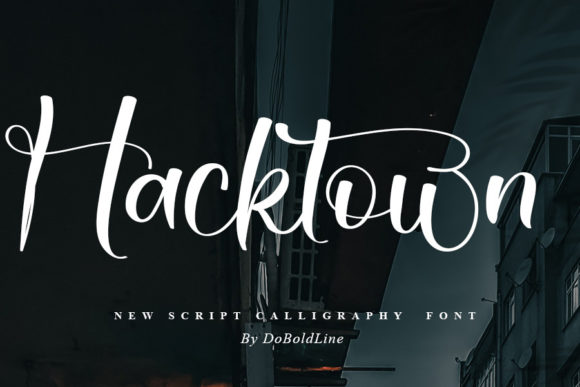
In a world of digital expression, where every word carries weight, the quest for a font that resonates with your brand's soul is paramount. Enter Hacktown Font, a modern calligraphy script that breathes life into your designs with its timeless elegance and undeniable charm.
Hacktown is not just a collection of letters; it's a journey through history, a testament to the enduring power of penmanship. Each stroke is a dance of ink, capturing the essence of handwritten notes and transforming them into digital masterpieces.
With its carefully crafted curves and impeccable form, Hacktown elevates your brand's identity to new heights. Its versatility knows no bounds, perfectly complementing everything from logos and branding to social media graphics and website headlines.
Step into the realm of exceptional typography and let Hacktown weave its magic. Its harmonious balance and captivating variation add a touch of sophistication to any project, ensuring that your message leaves a lasting impression.
But Hacktown is more than just visually stunning; it's an emotional connection, a bridge between your brand and your audience. Its organic flow evokes a sense of nostalgia and authenticity, inviting customers to engage with your brand on a deeper level.
In a world saturated with digital noise, Hacktown stands out as a beacon of individuality, helping your brand shine brighter and resonate more profoundly with your target audience. Its timeless appeal ensures that your message will endure, transcending trends and fads.
So, embrace the beauty of handwritten artistry and let Hacktown be your brand's eloquent voice. Discover the boundless possibilities of this remarkable font and embark on a creative journey that will leave an indelible mark on your customers' hearts and minds.